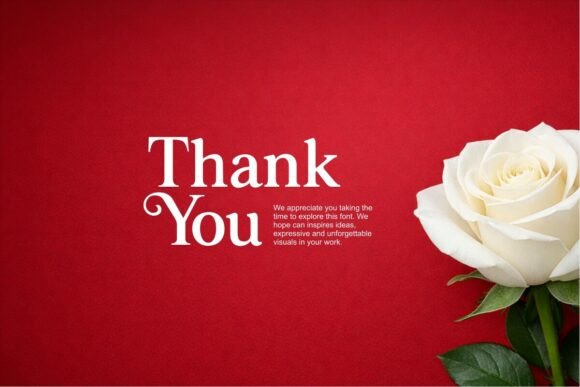
Introduction to Eliganthe Font
Have you ever stared at a blank page, trying to find the perfect font to elevate your design and make it truly unforgettable? That moment of creative hesitation is all too familiar for many designers. But what if you could unlock a font that not only meets but exceeds your expectations? Enter Eliganthe Font, a premium serif display font that’s poised to revolutionize your typography game.
This luxurious typeface is designed to make a statement, with striking high-contrast strokes and sweeping curves that exude a boutique, high-end aesthetic. Whether you’re working on a premium branding project, crafting wedding stationery, or designing editorial layouts, Eliganthe Font is the perfect design resource to add a touch of glamour and sophistication to your creative project.
Key Features of Eliganthe Font
- Unique characteristics include intricate details and ornate flourishes, making it perfect for formal or luxury-themed designs.
- Supports a wide range of languages, including Latin, making it a versatile choice for designers working on multilingual projects.
Honest Review: Eliganthe Font
As a designer, I’m always on the lookout for high-quality design resources to elevate my creative projects. Recently, I had the chance to work with the Eliganthe Font, and I’m excited to share my honest review.
What works well: ✨ The Eliganthe Font offers a wide range of styles, from elegant to modern, making it perfect for various design projects. The font is also available for free download, which is a major plus for designers on a budget. I appreciate the transparent background, which allows for easy editing and customization.
Tips for Getting the Most Out of Eliganthe Font
To get the most out of the Eliganthe Font, experiment with different font sizes, colors, and styles. You can also use the font in combination with other design elements, such as images and graphics, to create unique and eye-catching designs.
The Eliganthe Font is commonly used in various creative projects, such as logos, graphics, presentations, and documents. Its high quality and transparent background make it a great choice for professional-looking designs.